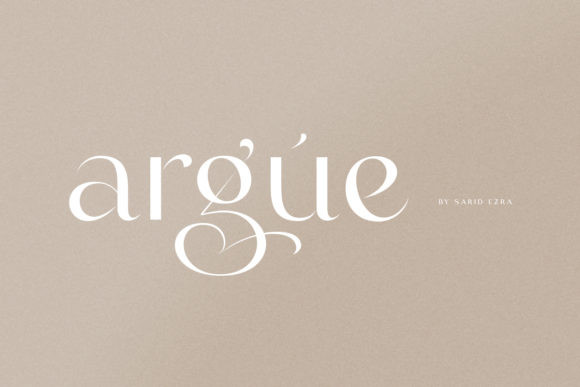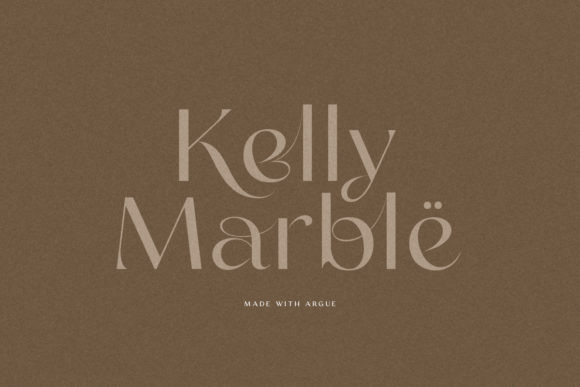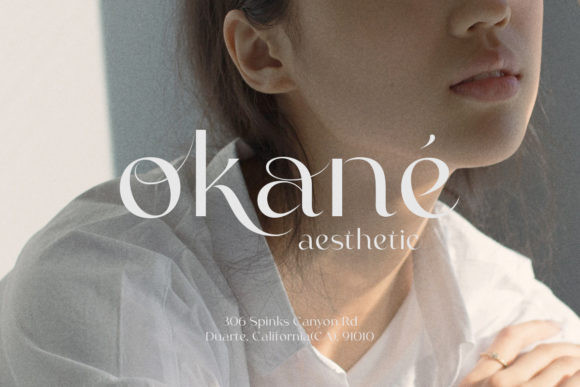
Argue Font
Argue is a creative and genuine display font. Expertly designed to make your creation look out of this world, this font has the potential to take your creative ideas far further.